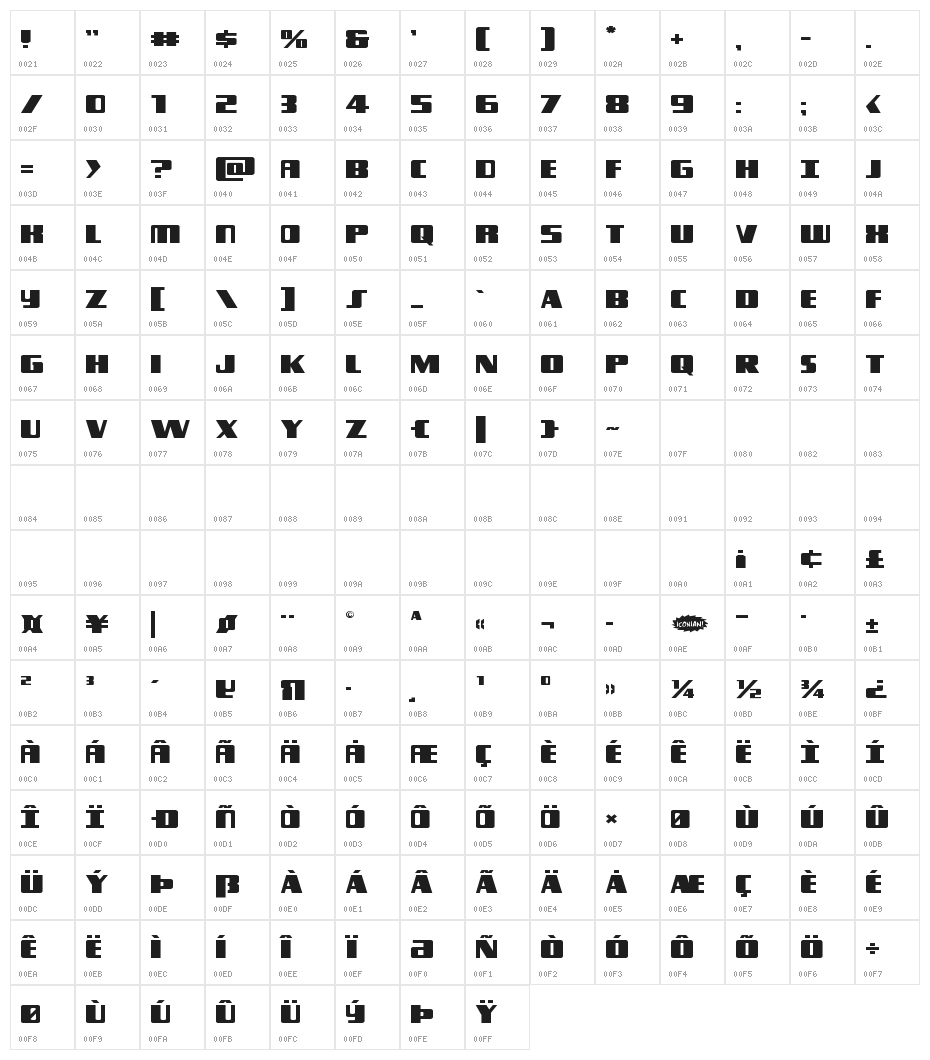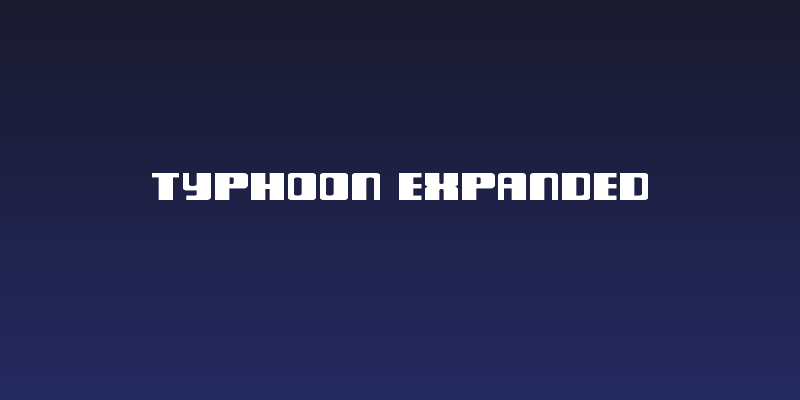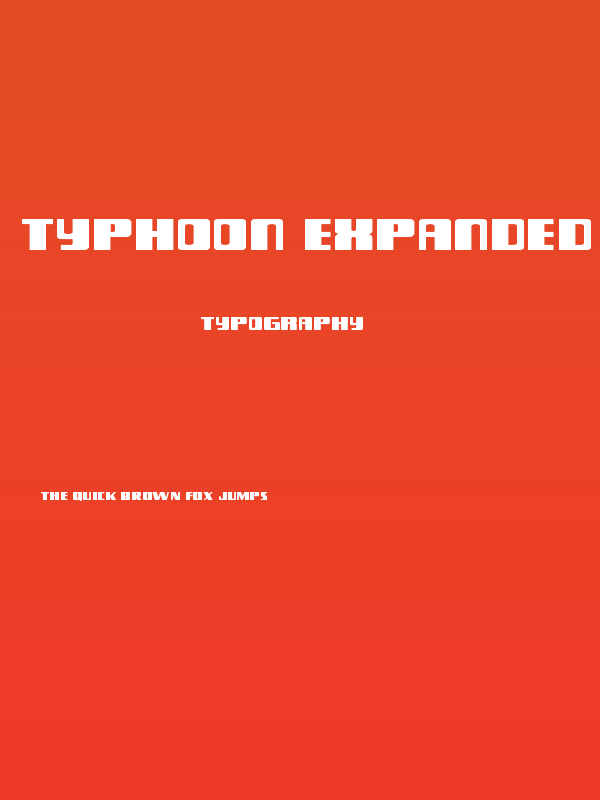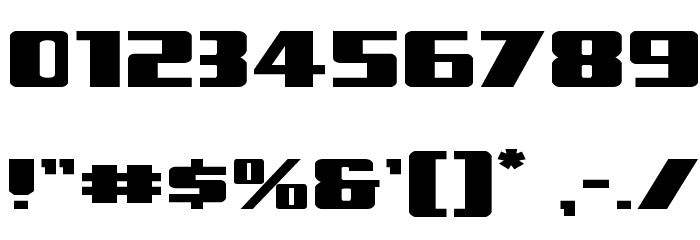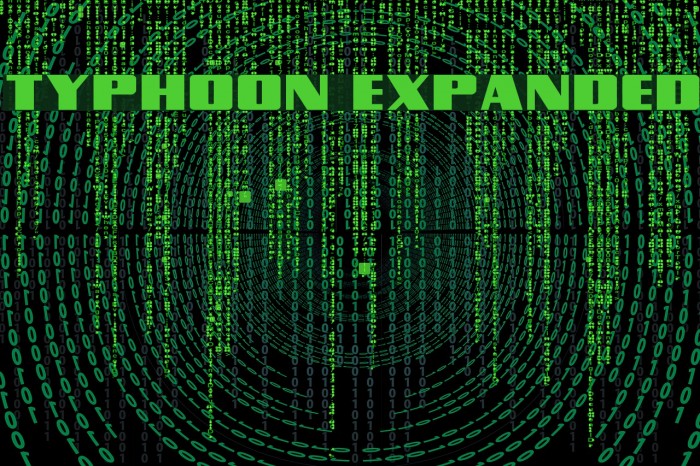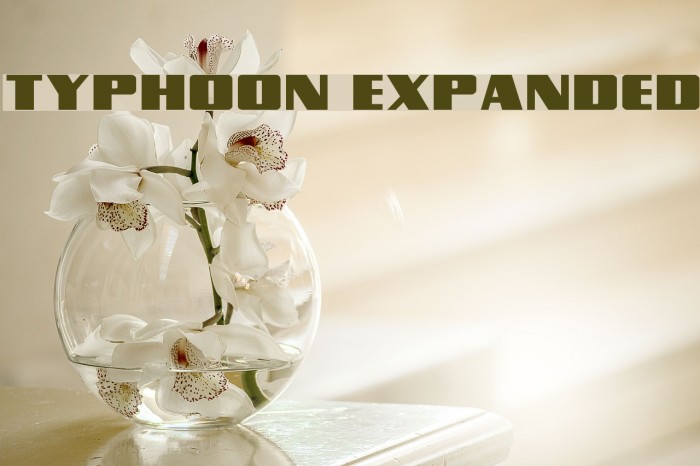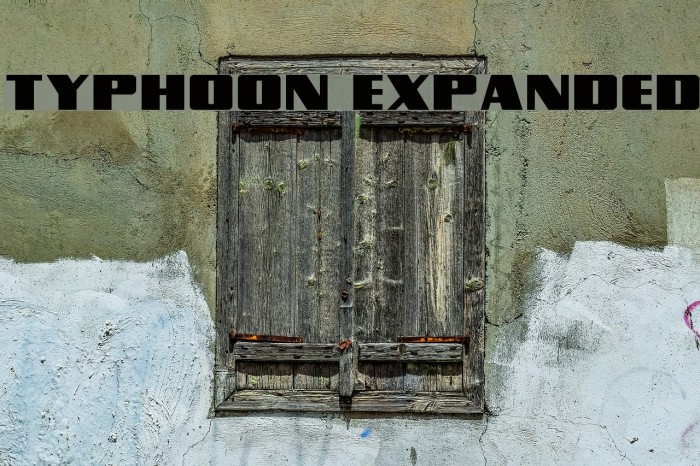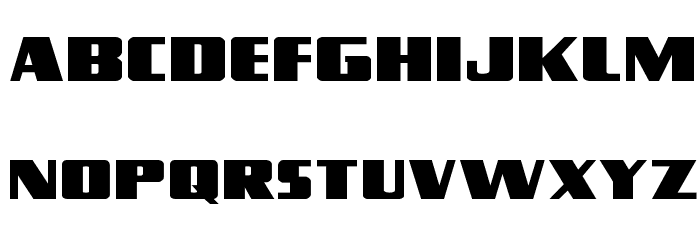
Typhoon Expanded Font
Typhoon Expanded Description
This font features a bold, geometric design with a strong presence. Its characters are wide and blocky, with a uniform thickness that gives it a powerful and modern appearance. The uppercase letters are particularly striking, with sharp angles and a consistent height that creates a cohesive look. The numerals and special characters maintain the same bold style, ensuring readability and impact. This font's expanded width and solid structure make it ideal for attention-grabbing headlines and display purposes.
| Proposed Projects | Ideal for branding, posters, headlines, and any project requiring a strong visual impact. |